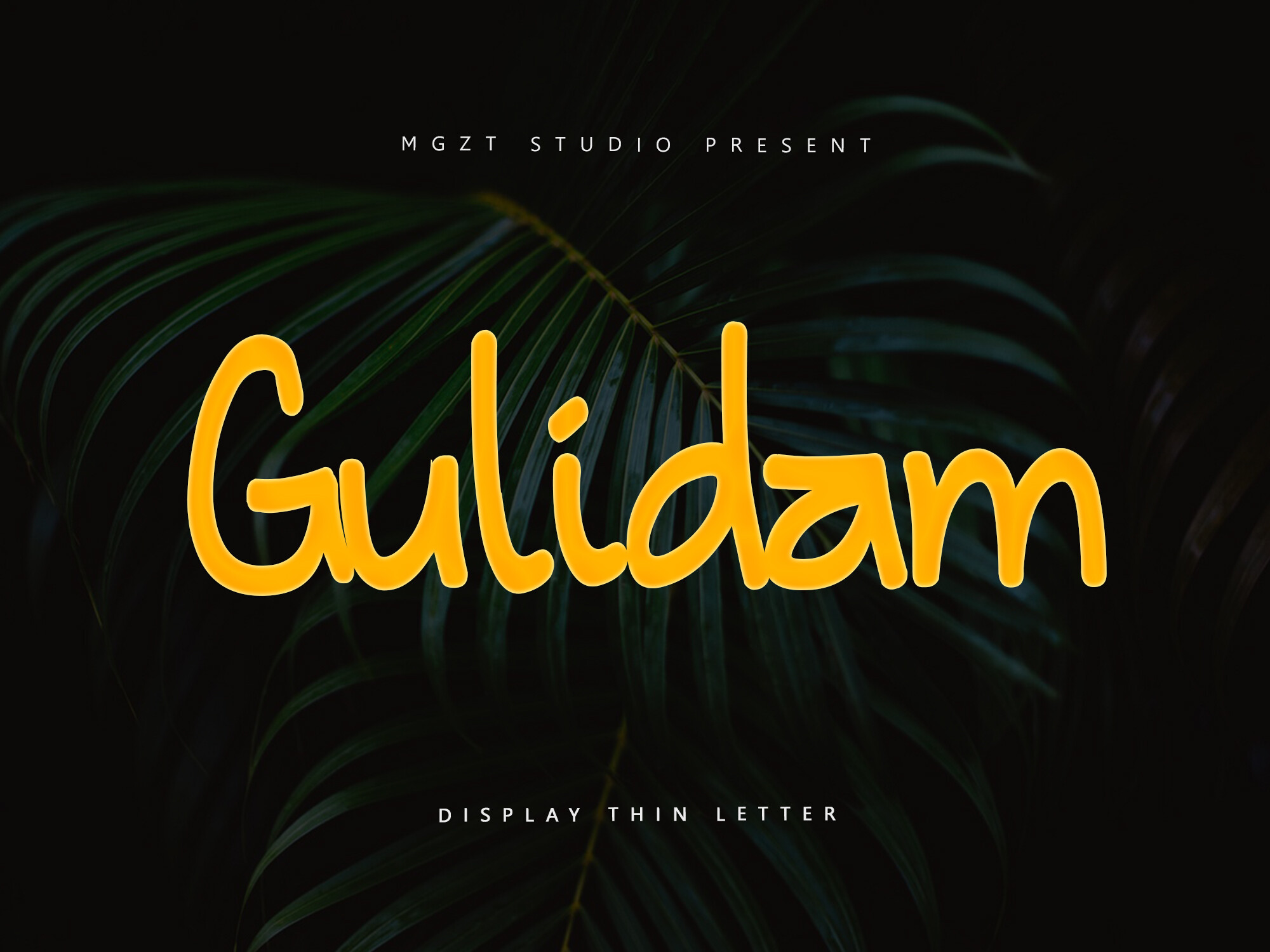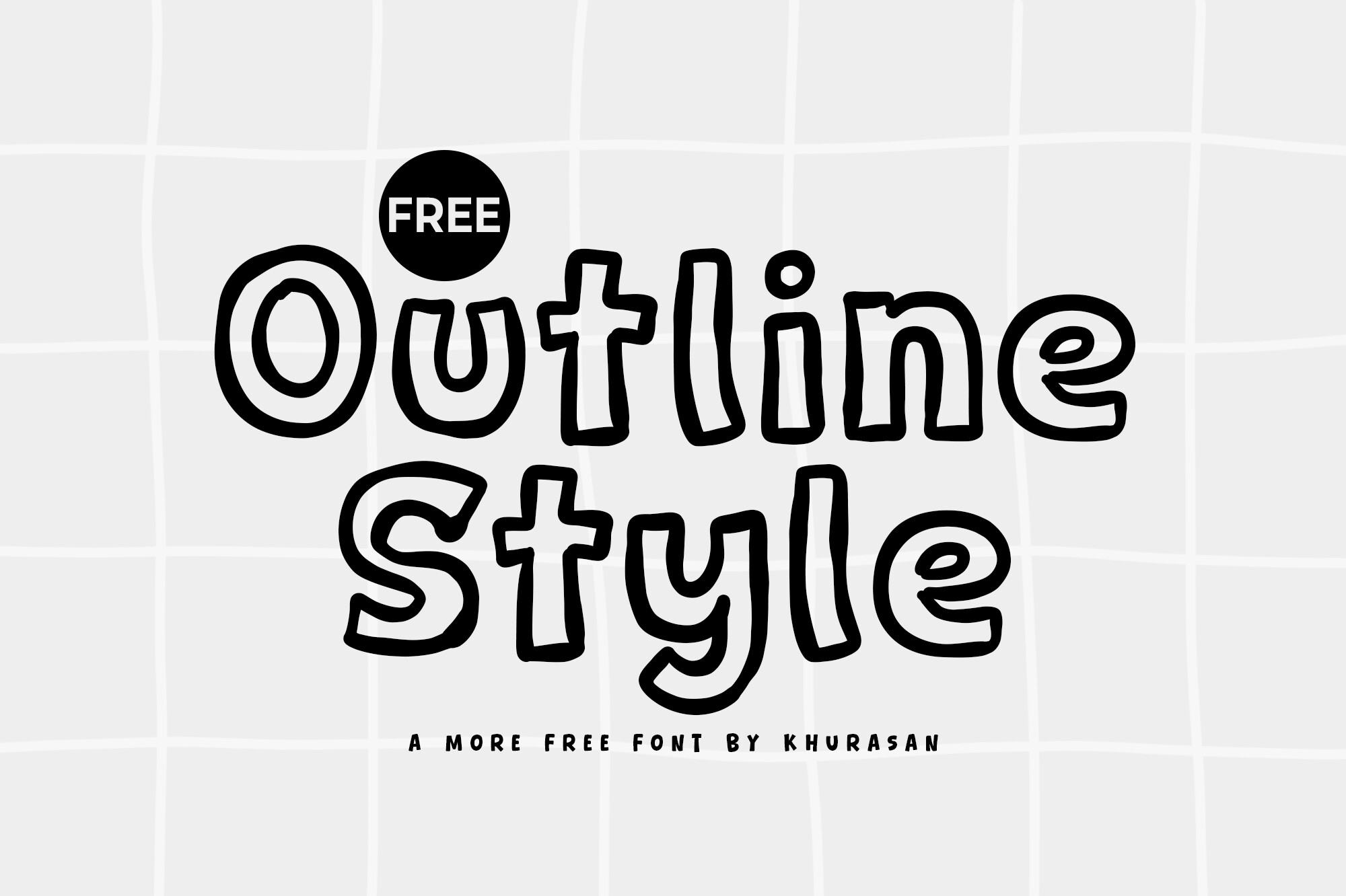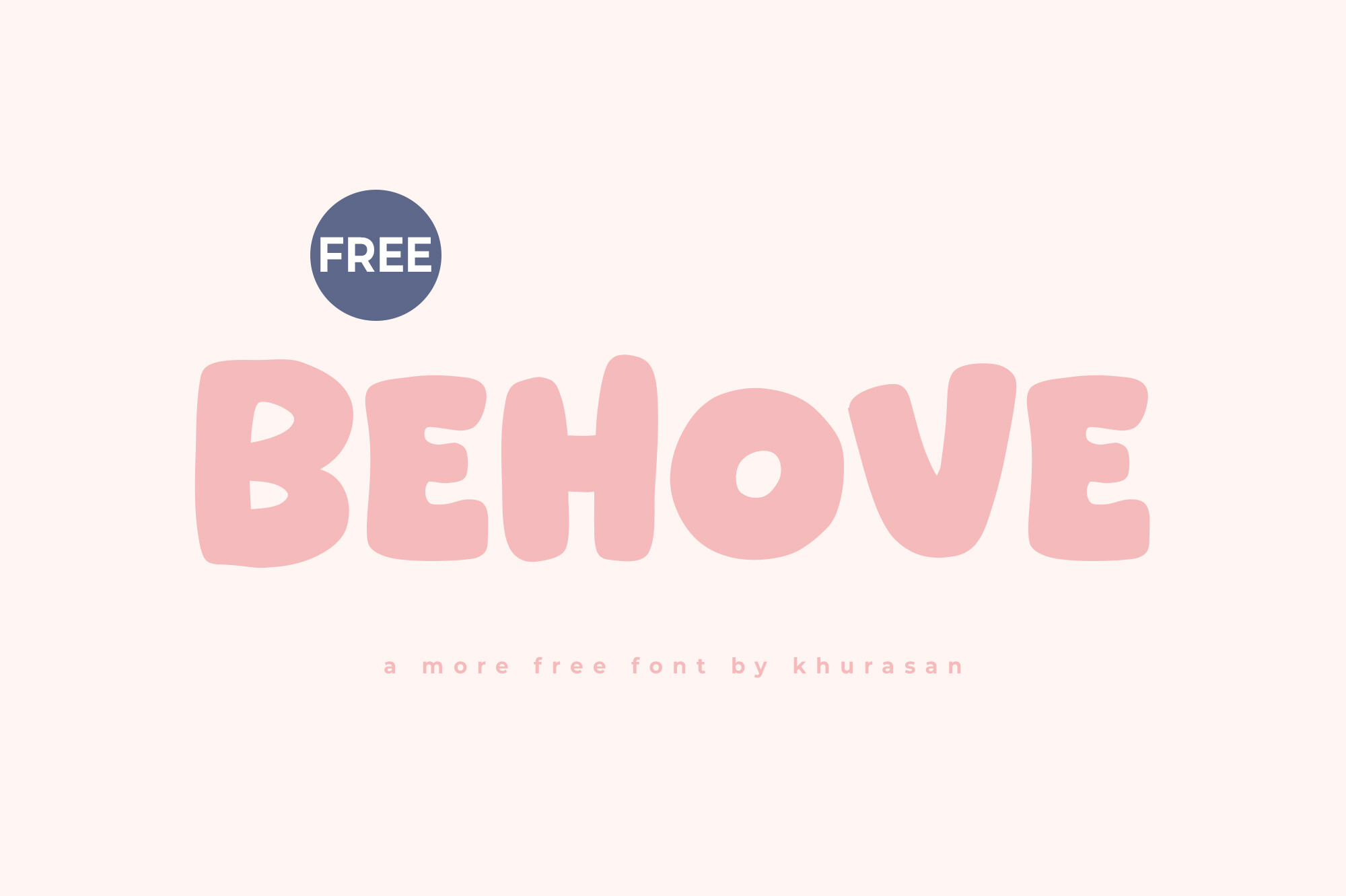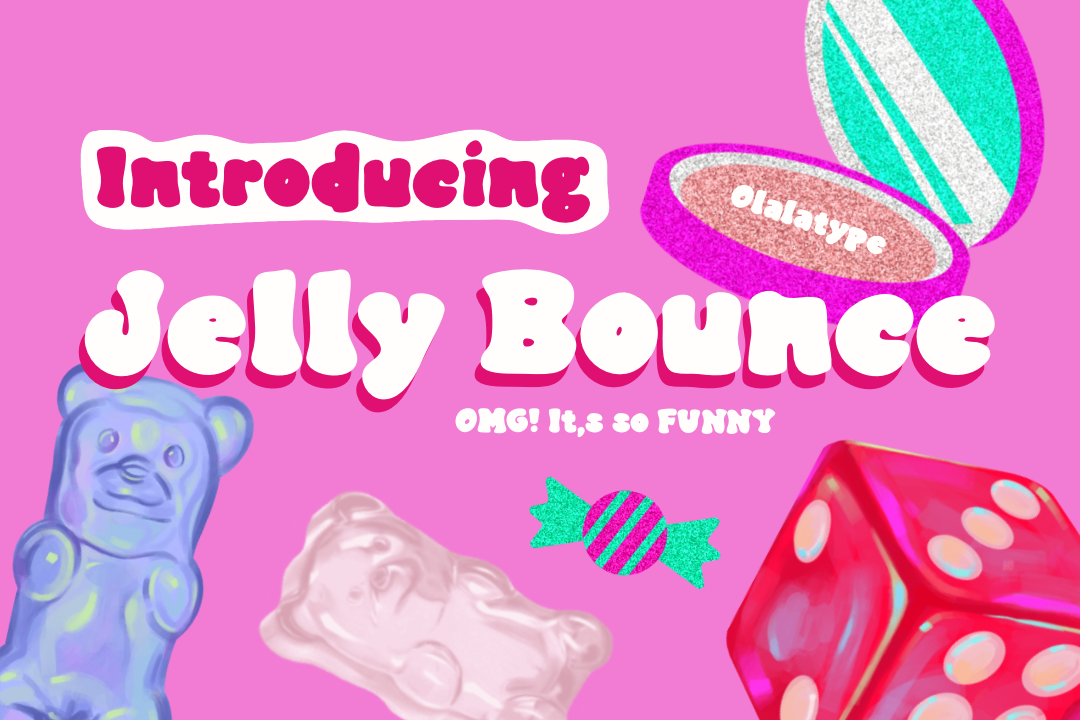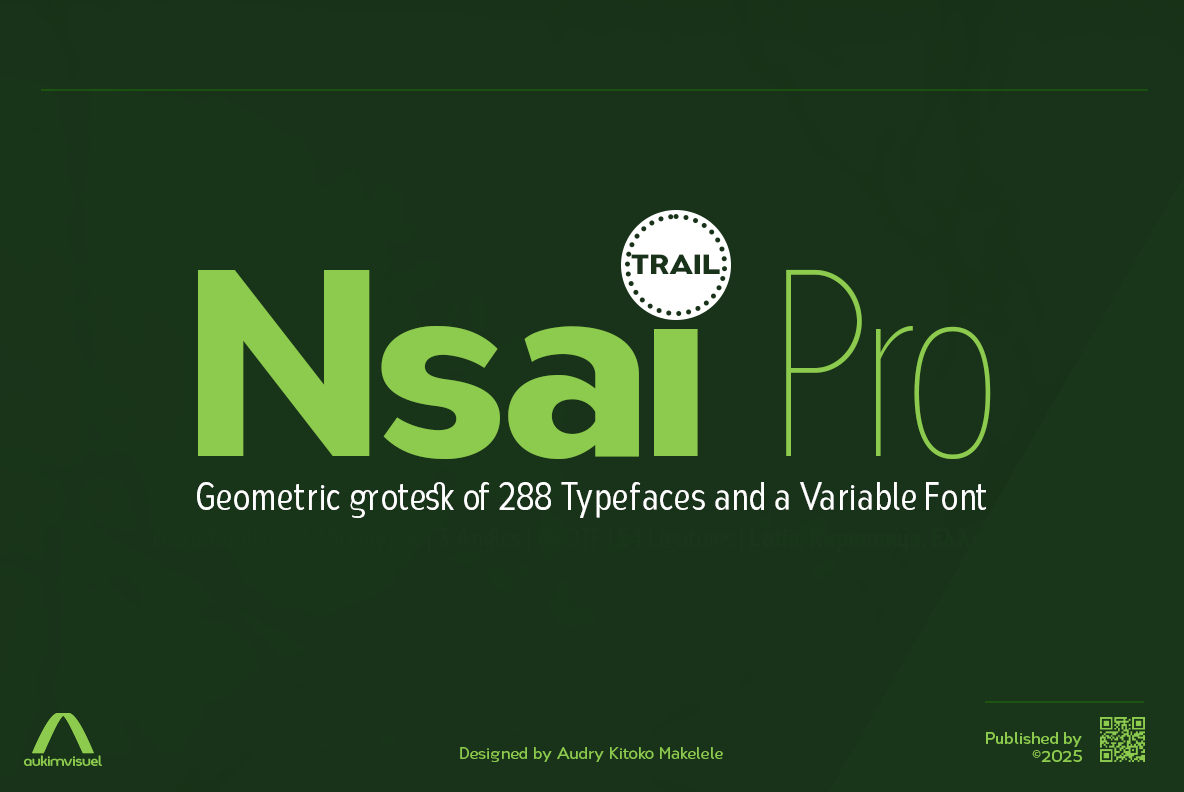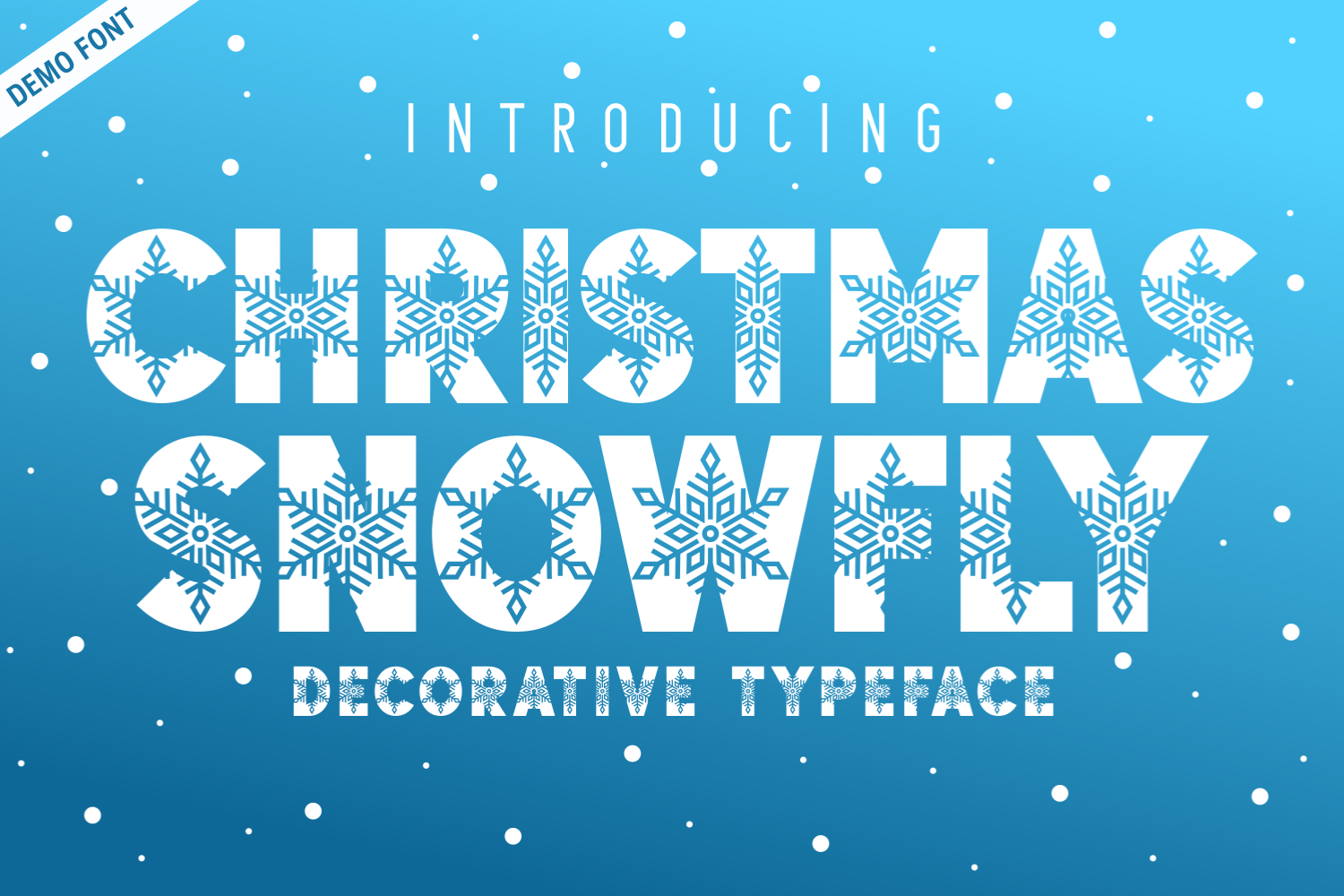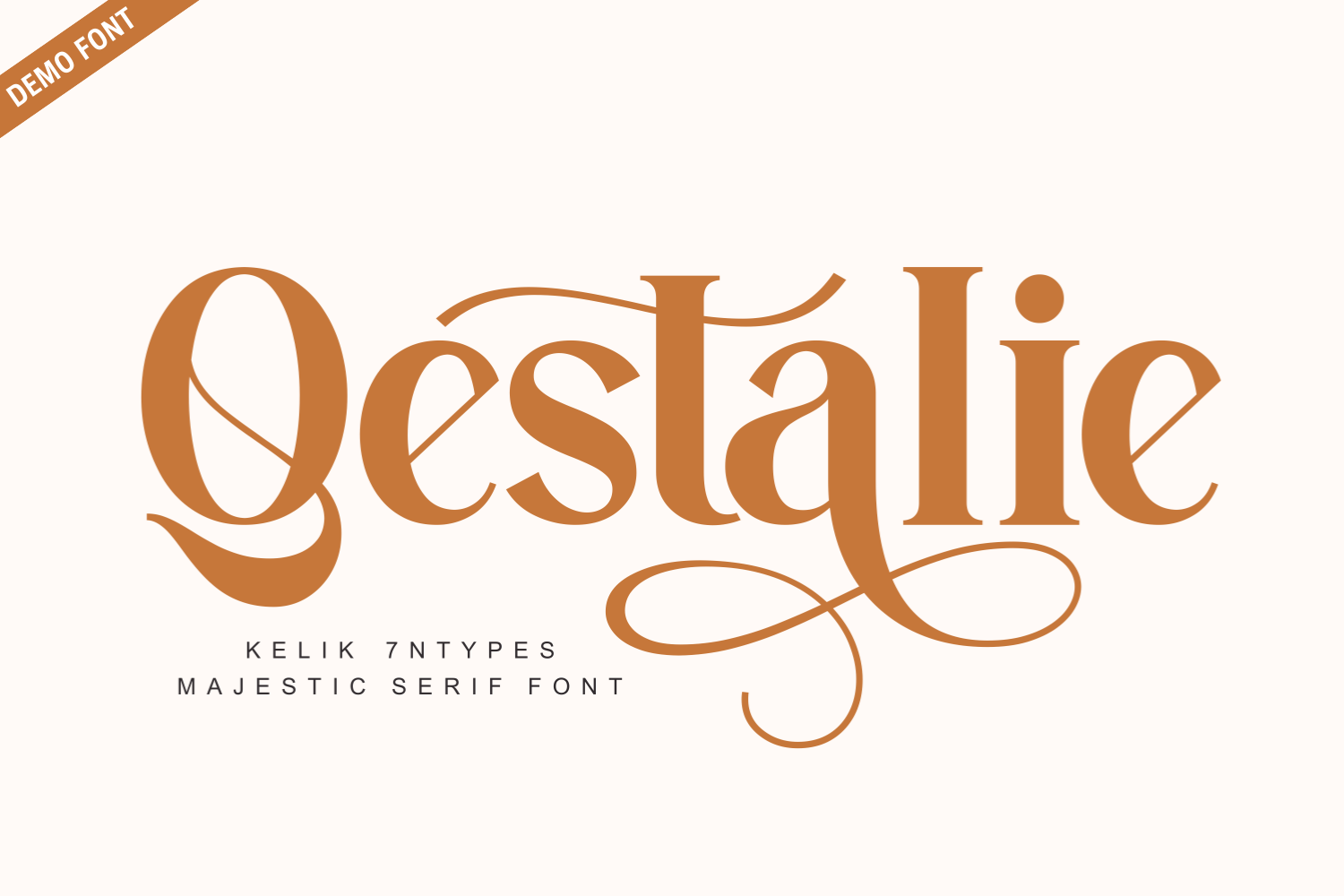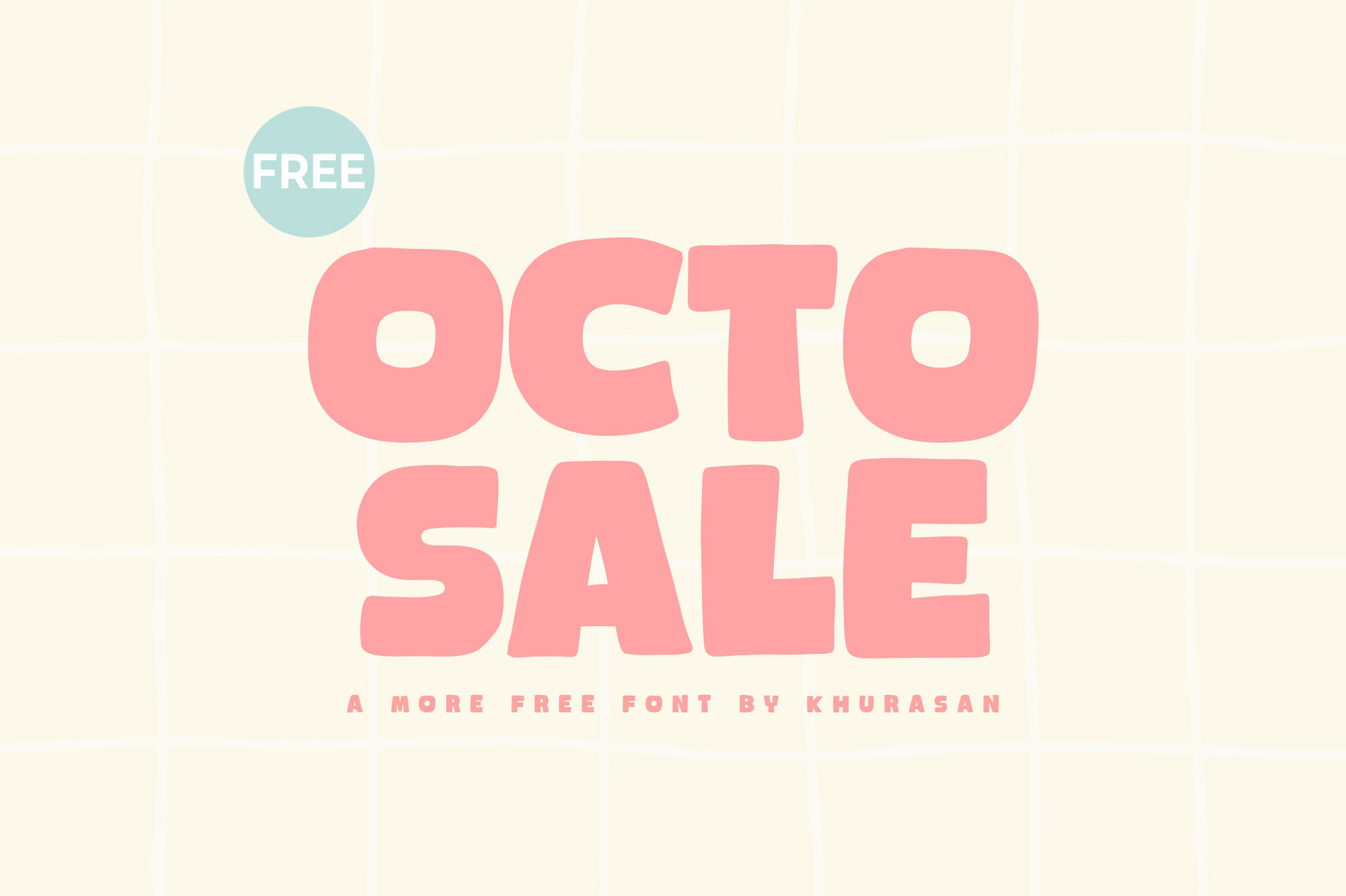
Welcome to this week's Free Fonts Friday! We are excited to present a vibrant collection of fonts that are perfect for all your creative needs. Featuring fun and whimsical styles, this selection includes Gulidam, Outline Style, Behove, and more. Each font has unique characteristics that make them ideal for various projects, from playful invitations to elegant branding. Whether you're designing for children or creating sophisticated marketing materials, these fonts will inspire your creativity and make your work stand out. Dive into this delightful array of free fonts available for commercial use and elevate your designs today!
Gulidam
Gulidam is a delightful and whimsical display font that radiates positivity and charm. Its playful curves and bold outlines make it an excellent choice for children’s projects, vibrant branding, birthday invitations, and school posters. This font brings a sense of joy and creativity to any design, ensuring that messages are conveyed clearly while maintaining a friendly, casual vibe. Whether you're crafting cheerful announcements or playful graphics, Gulidam adds that perfect touch of fun and readability, making it a must-have for designers who aim to captivate their audience.
Outline Style
Outline Style is a contemporary and charming display font that adds a unique flair to your projects. With its clean lines and playful design, this font is perfect for a variety of applications, including posters, logos, magazines, and banners. Its versatility allows it to fit seamlessly into numerous creative endeavors, enhancing your designs with a touch of elegance and fun. Whether you're working on marketing materials or personal projects, Outline Style ensures your text stands out while maintaining an inviting aesthetic that captivates audiences.
Behove
Behove is a delightful and modern display font that effortlessly enhances your creative projects. Its charming design is ideal for various applications, including posters, logos, magazines, and book covers. This font stands out with its playful aesthetics while offering versatility, making it perfect for a wide range of design ideas. Behove's unique style allows it to seamlessly integrate into numerous contexts, ensuring your designs are eye-catching and memorable. Add this remarkable font to your toolkit and elevate your creative endeavors with its whimsical charm.
Cutie Raskila Demo
Cutie Raskila is a stunning modern calligraphy script font that captures the essence of elegance and charm. With its smooth curves and delicate swashes, this font is perfect for a variety of uses, including wedding invitations, branding, logo design, social media graphics, and greeting cards. It strikes a beautiful balance between contemporary style and classic script, allowing it to fit seamlessly into both formal and casual contexts. Add a touch of sophistication to your design projects with Cutie Raskila, making every word feel personal and heartfelt.
Jelly Bounce
Jelly Bounce is an enchanting hand-drawn font that brings a playful and energetic vibe to any design. With its charming bouncy lines and whimsical shapes, this font evokes nostalgia and captures the joy of childhood doodles. Perfect for kids' projects, party invites, and playful branding, Jelly Bounce adds a cheerful touch to your designs. Its light-hearted essence is ideal for creating visuals that inspire smiles and resonate with audiences of all ages. Let your creativity flourish with this delightful font that embodies fun and innocence.
Midnight Whimsy
Midnight Whimsy is a captivating display font that adds a whimsical and slightly spooky flair to your designs. Perfect for Halloween-themed projects, this font features creatively styled letters embellished with charming Halloween elements such as ghosts, candles, and witch hats. It strikes a delightful balance between creepy and cute, making it suitable for a wide range of festive designs, including party invitations and crafts. Let Midnight Whimsy bring a touch of enchantment to your seasonal projects, ensuring they stand out with a playful, family-friendly spirit that appeals to all ages.
Nsai Pro Trial
Nsai Pro is a versatile typeface family designed to excel in clarity and functionality. With a refined structure and precision, it provides an excellent solution for modern graphic applications. Featuring an extensive collection of 3,750 glyphs, it supports multiple scripts, allowing for seamless multilingual communication. The robust OpenType system includes 49 features that enhance typographic control. With six widths and sixteen weights, Nsai Pro is adaptable to various design needs, making it a valuable tool for designers, publishers, and creatives seeking a high-performance font that combines style with utility.
Christmas Snowfly Demo
Christmas Snowfly is a festive decorative typeface that embodies the magic of the holiday season. Each letter is intricately designed with sparkling snowflakes, making it perfect for holiday-themed projects. Whether you’re creating Christmas cards, invitations, or festive branding, this font captures the cozy spirit of winter. Its unique icy details ensure that your text stands out, transforming ordinary messages into extraordinary seasonal designs. Bring warmth and cheer to your projects with Christmas Snowfly, and let every word tell a delightful story of holiday joy.
Qestalie Demo
Qestalie is a majestic serif font that exudes elegance and sophistication. Its refined letterforms, graceful curves, and artistic ligatures make it a perfect choice for projects requiring a touch of luxury. Ideal for branding, editorial design, packaging, and wedding stationery, Qestalie elevates any design with its classic beauty. The font maintains high readability, ensuring it works beautifully in both digital and print formats. Let Qestalie bring a sense of grandeur to your creative work, making it a versatile option for designers seeking a unique and impactful typographic solution.